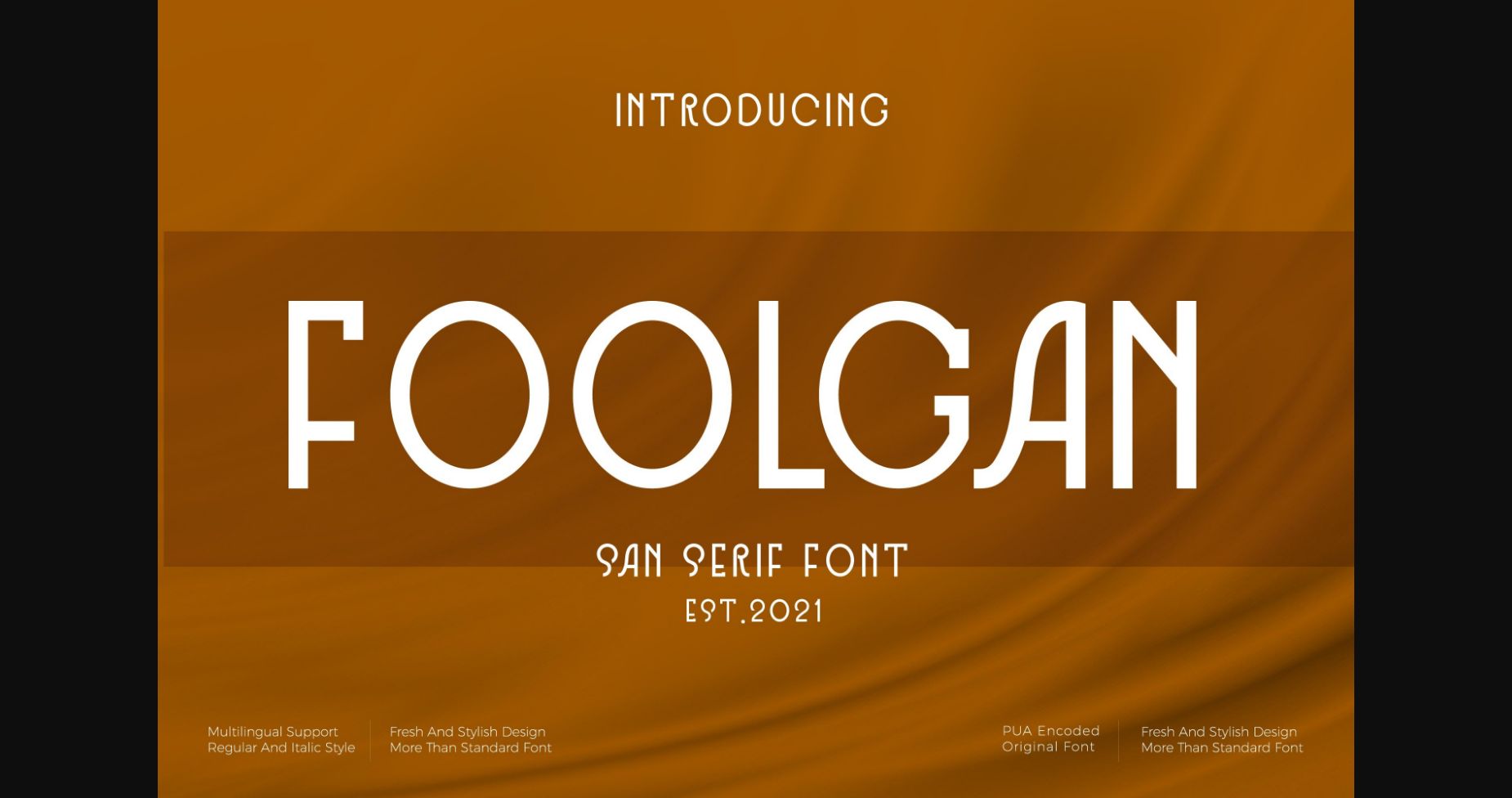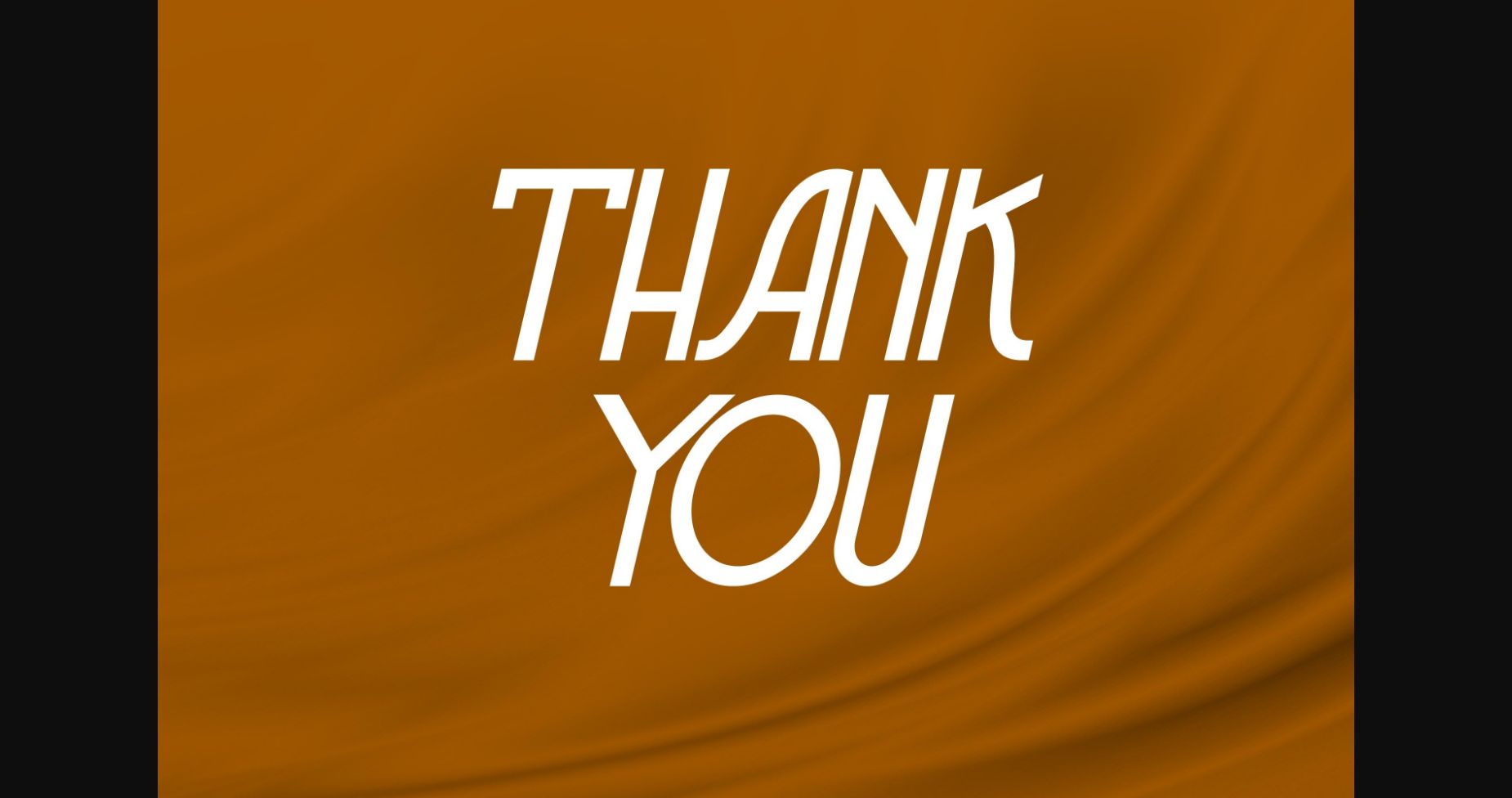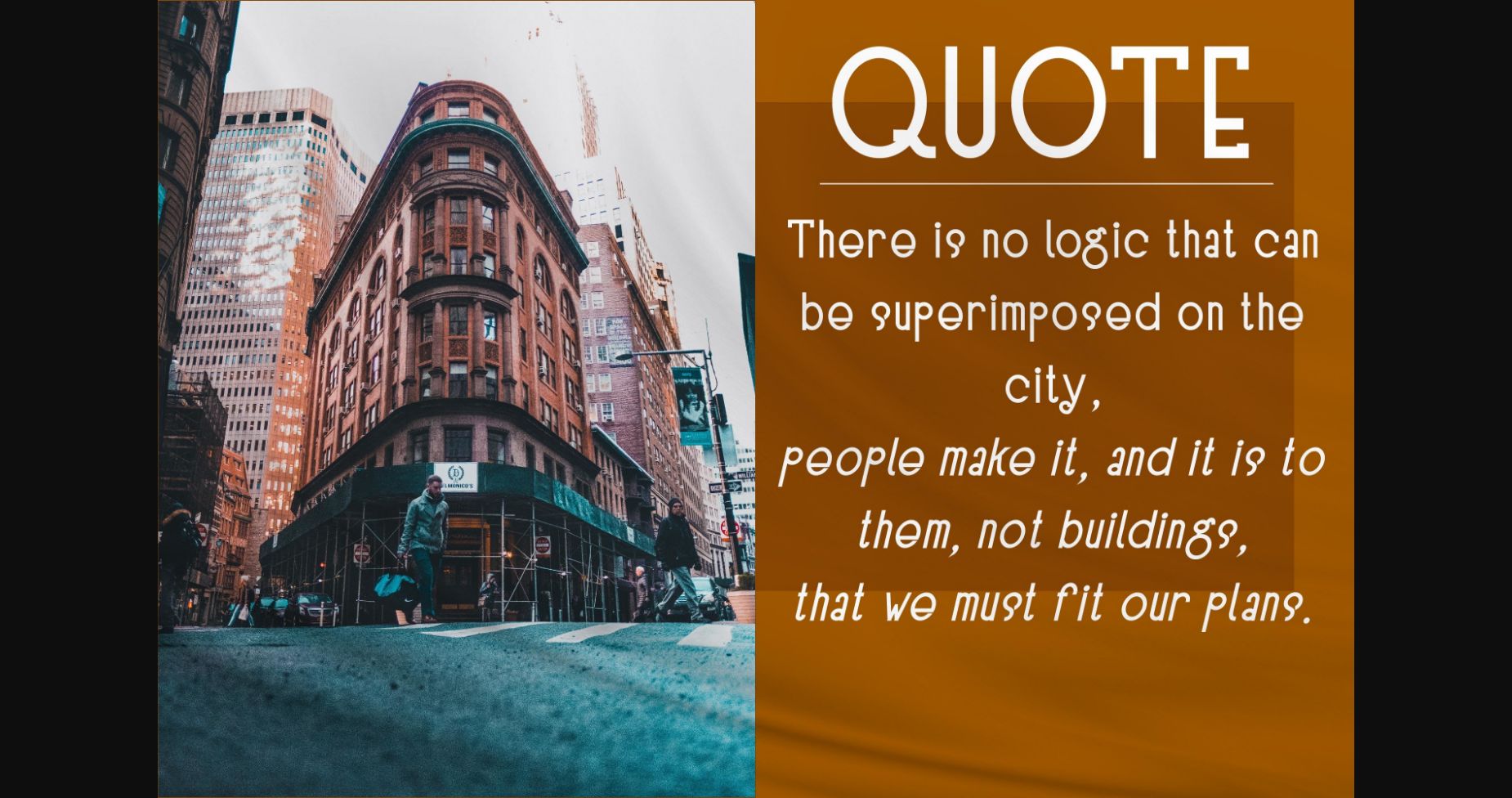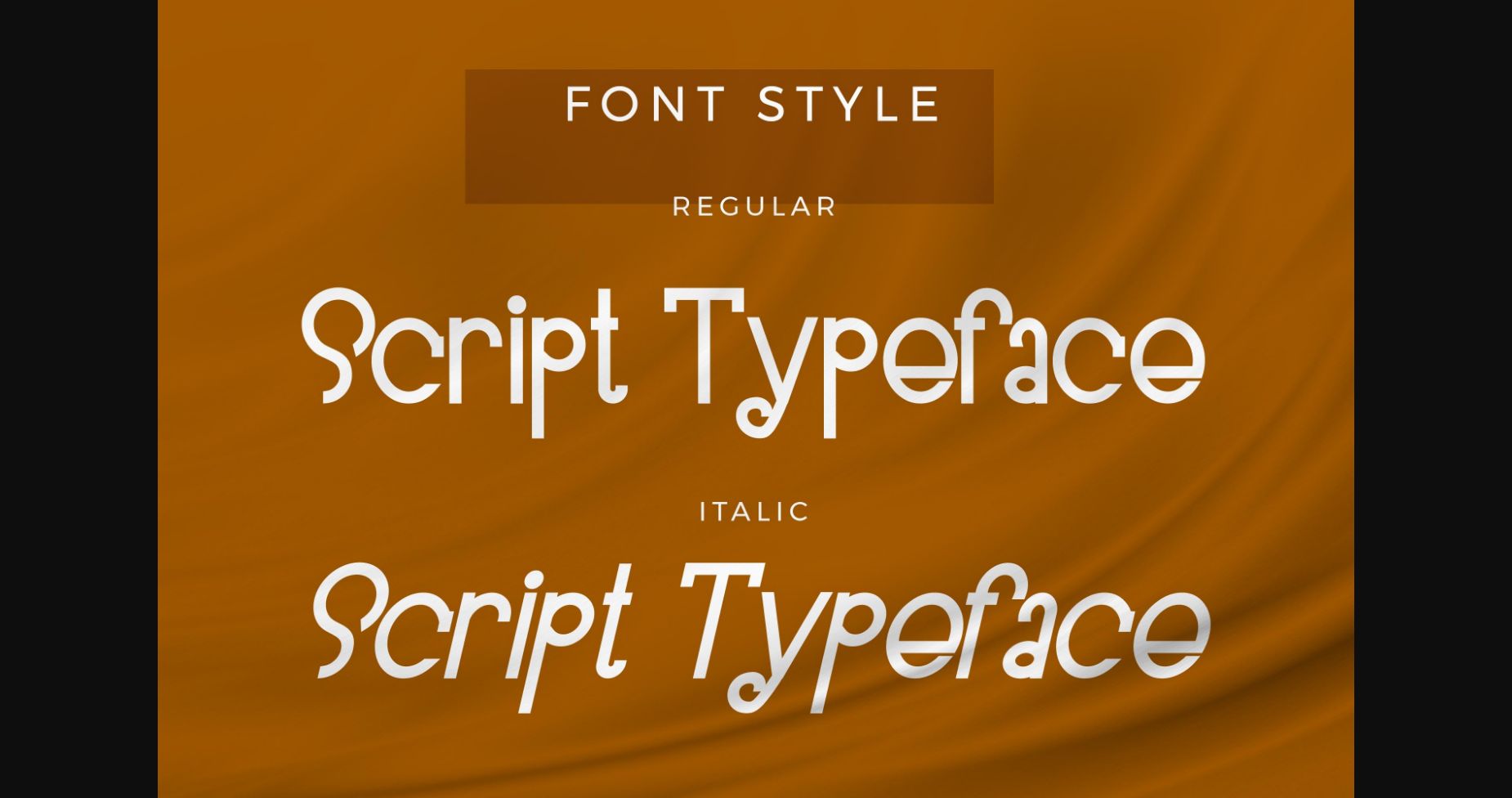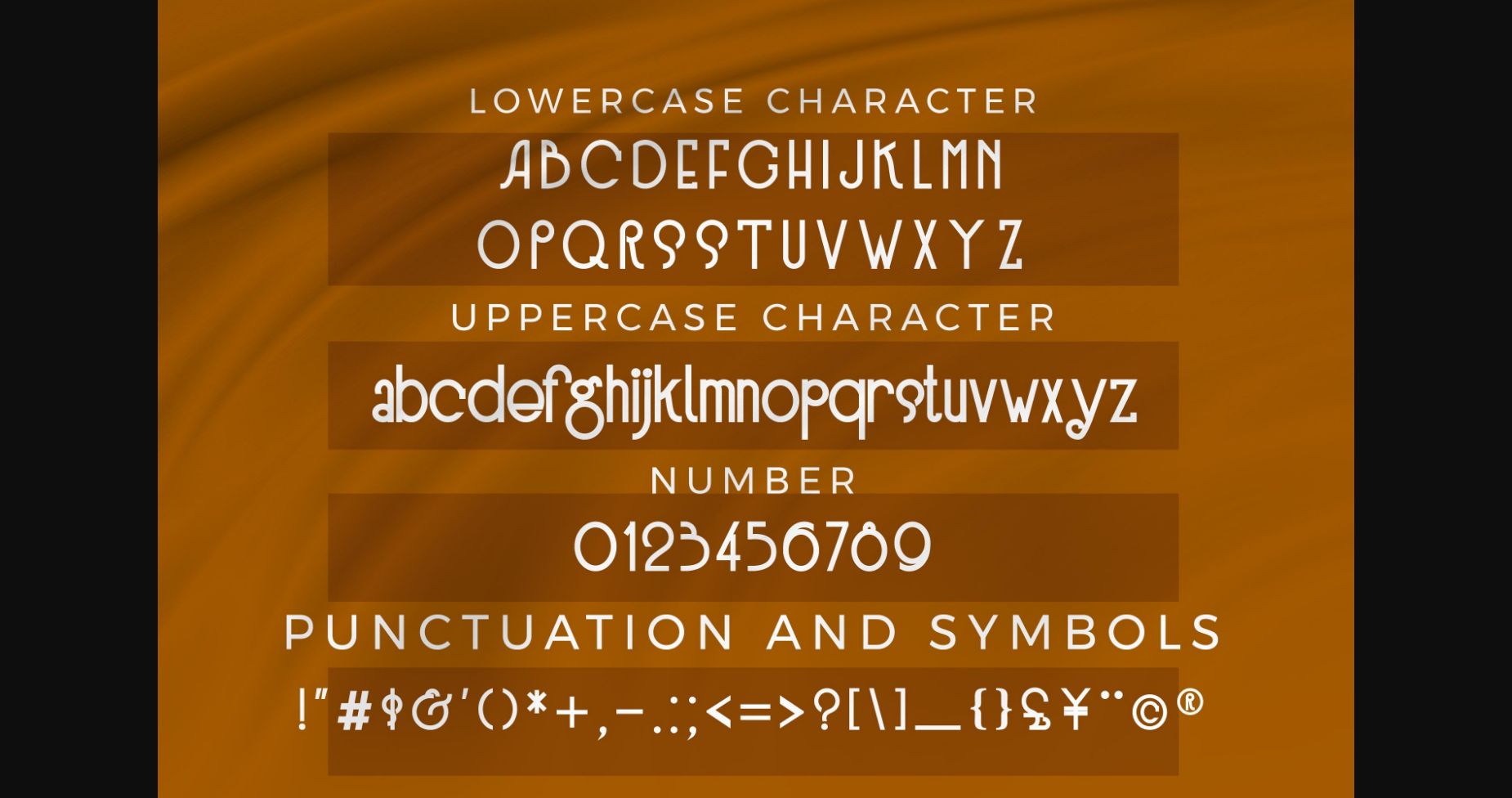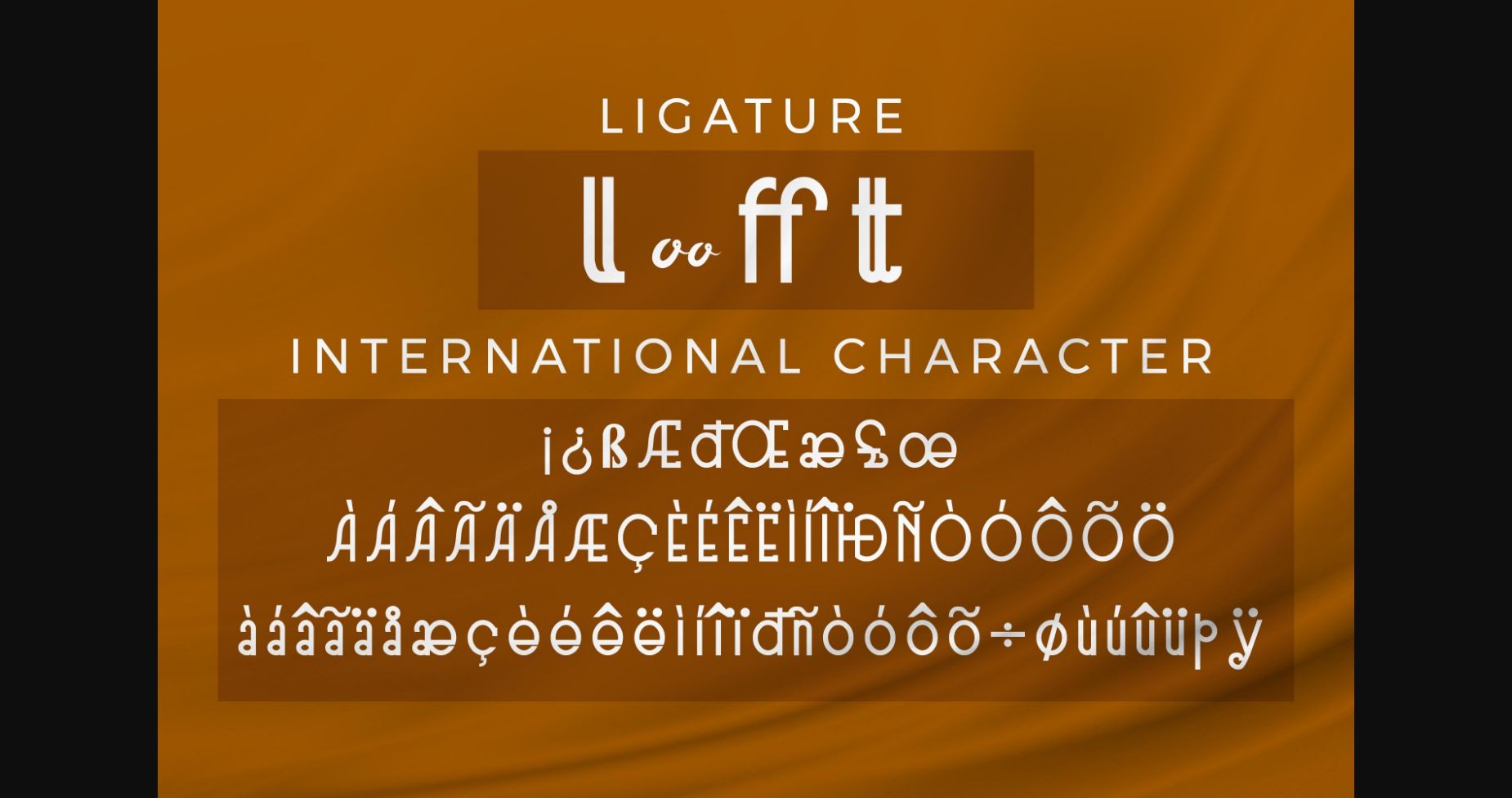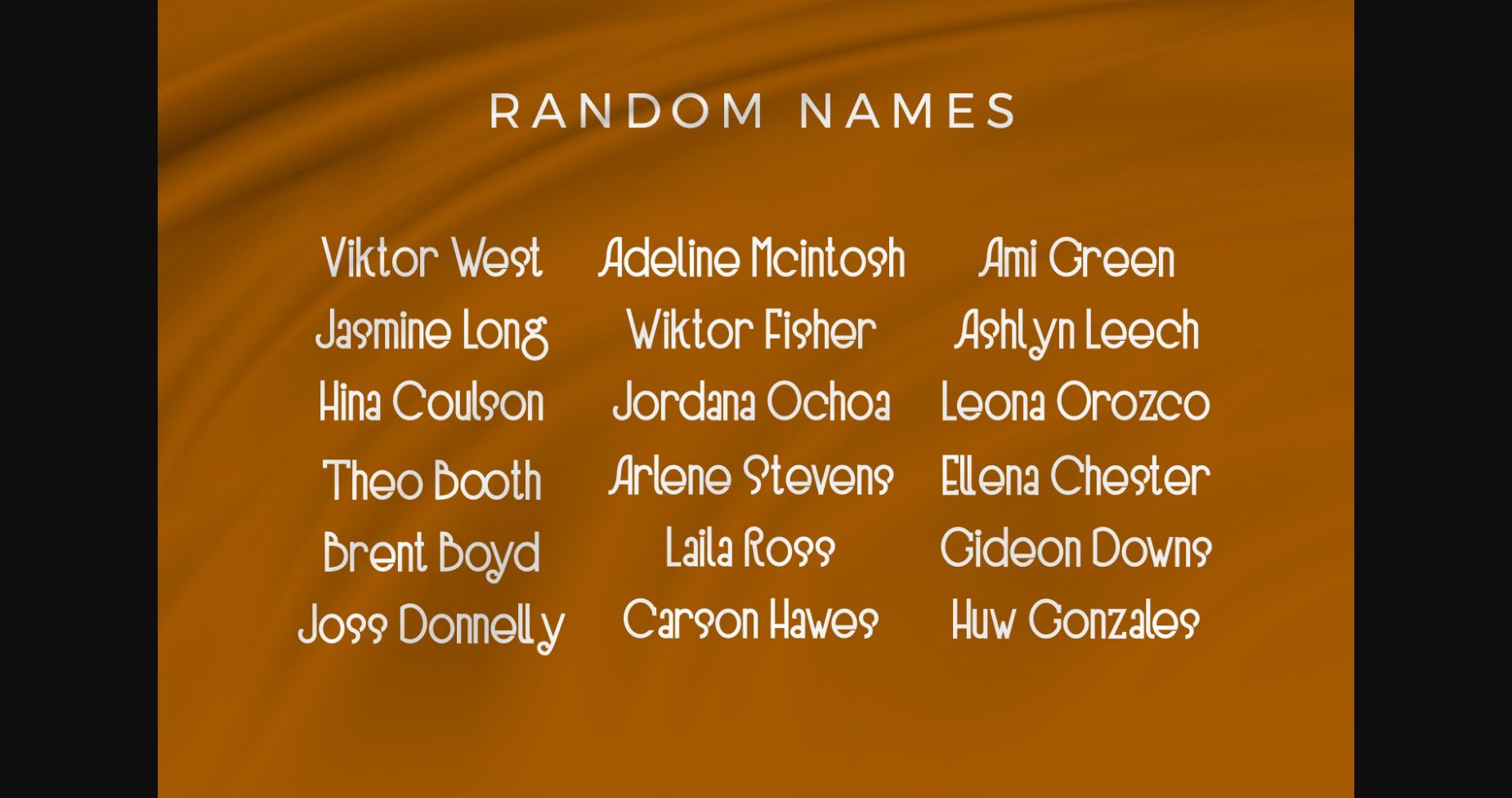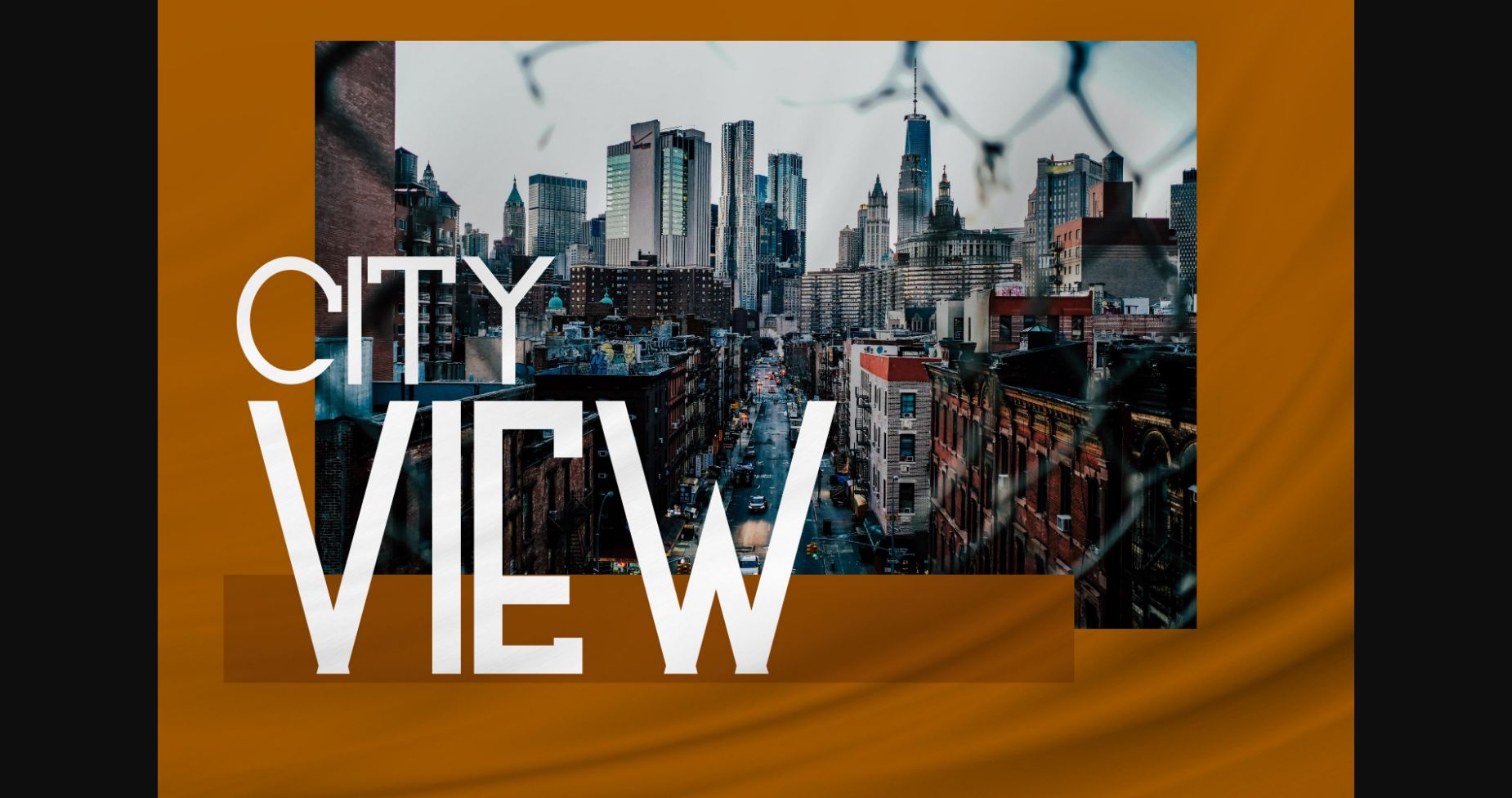
HomeSans Serif FontsFoolgan Font Sans Serif Fonts Foolgan Font FacebookXPinterestWhatsApp 1 of 10 ... Foolgan Font Poster 2... Foolgan Font Poster 3... Foolgan Font Poster 4... Foolgan Font Poster 5... Foolgan Font Poster 6... Foolgan Font Poster 7... Foolgan Font Poster 8... Foolgan Font Poster 9... Foolgan Font Poster 10... About Foolgan Font Foolgan is a tall and delicate sans serif font. Suitable to a wide variety of designs due to its neat and simple style, this font has the potential to become your favorite go-to font, no matter the occasion! DOWNLOAD NOW People also explored Monogram Amberila Font Arimossa Font Beloved Christmas Font Wedding Romance Font Royaume Monogram Authand Font Fresh Lemonade Font While Font Milk Candy Font 435 0 TagsFoolganFoolgan Font Previous articleMaguire FontNext articleKinsans Font LEAVE A REPLY Cancel reply Comment: Please enter your comment! Name:* Please enter your name here Email:* You have entered an incorrect email address! Please enter your email address here Website: Save my name, email, and website in this browser for the next time I comment. Personal Use Free Scarlove Personal Use Free Read more about this font Unicorn Kids Personal Use Free Read more about this font City Tour Personal Use Free Read more about this font Sebastopol Personal Use Free Read more about this font BLOG How to Install and Use Fonts on Windows, macOS, and Web Projects How to Install and Use Fonts on Windows, macOS, and Web Projects Fonts are a crucial part of design and branding. Whether you’re designing a... Top 7 Google Fonts Alternatives for Faster and Privacy-Friendly Web Design (2025) Free vs Paid Fonts: Why Investing in Premium Fonts Is Worth It 5 Fonts That Will Dominate Design Trends in 2026